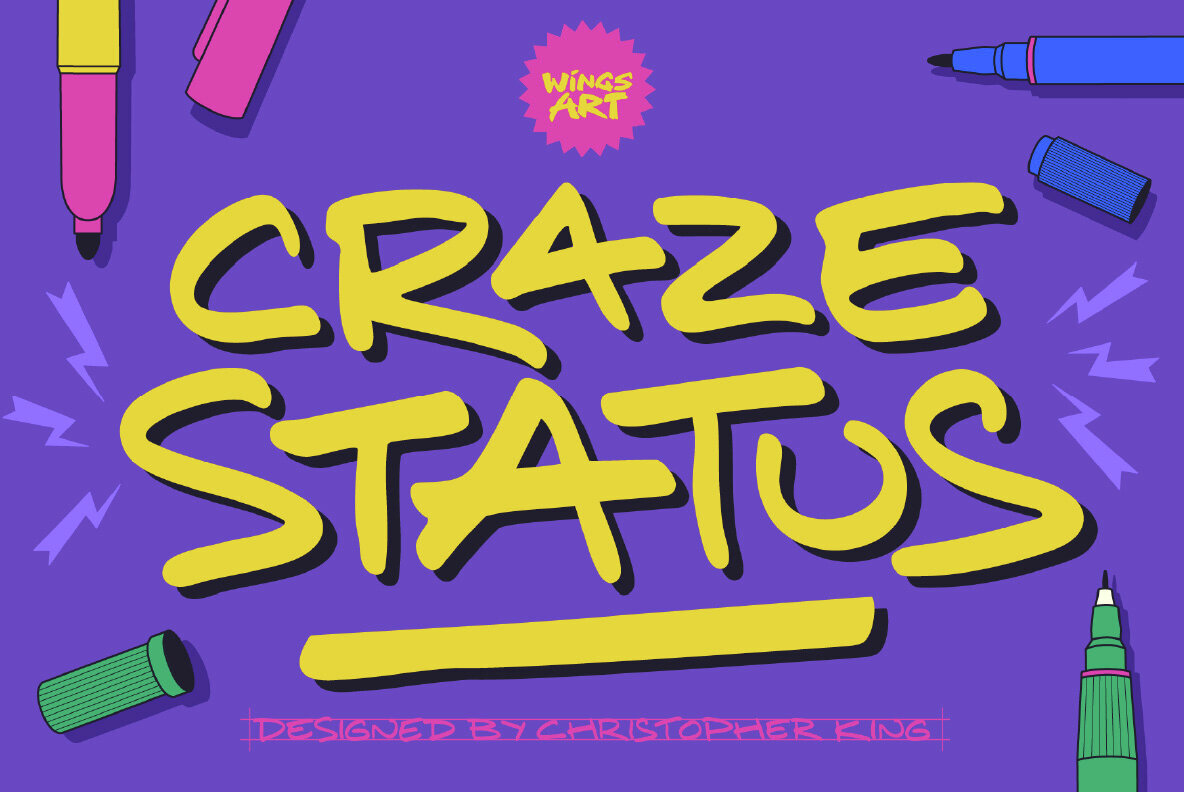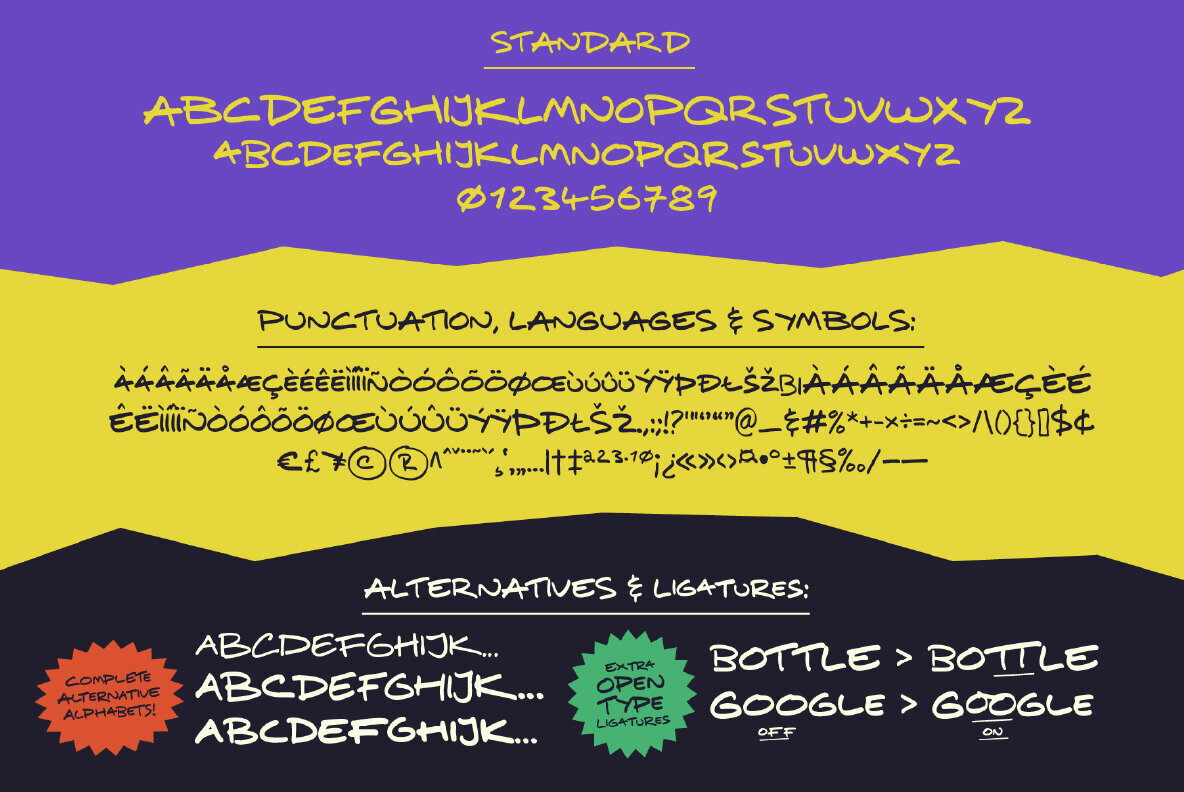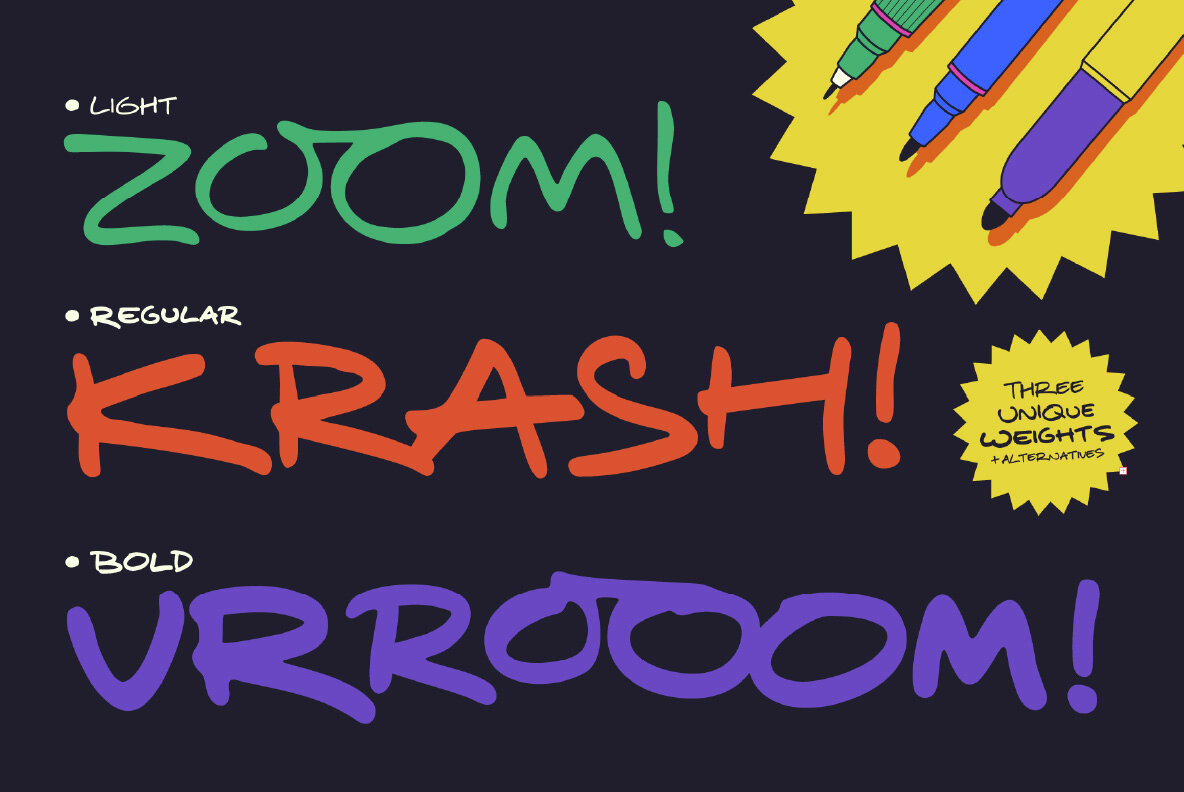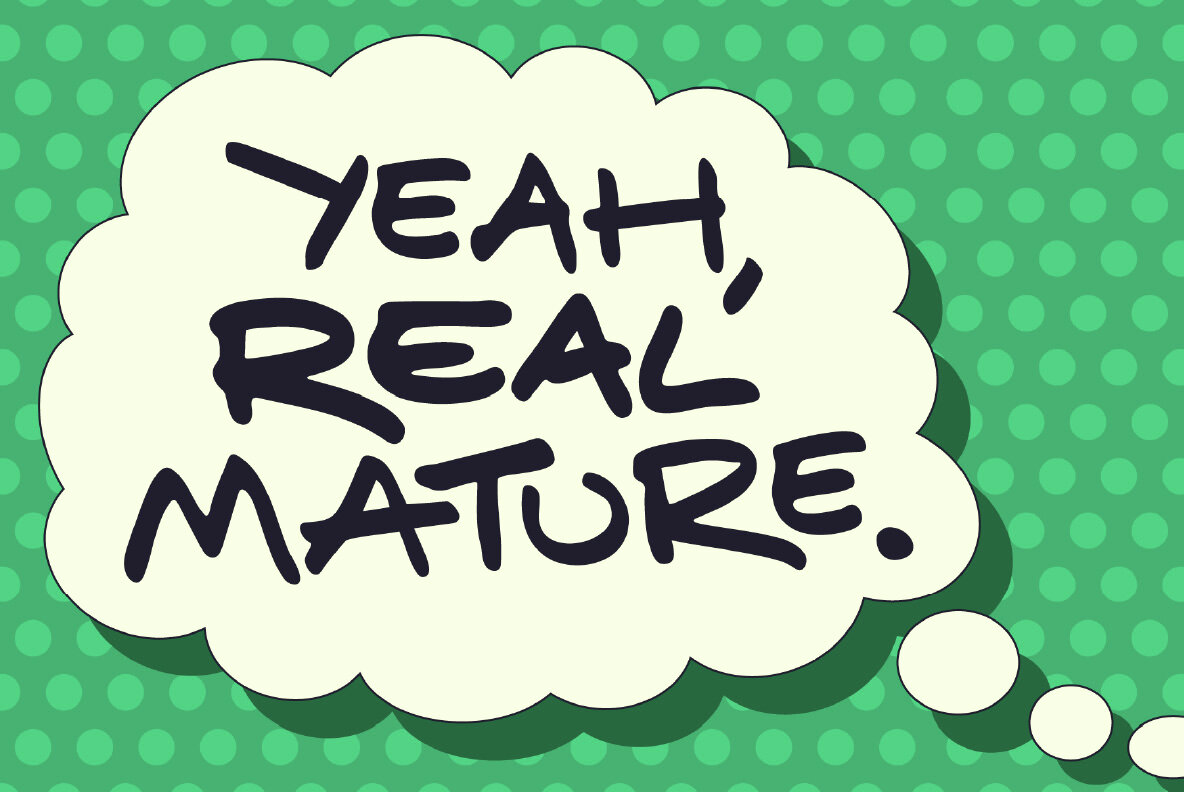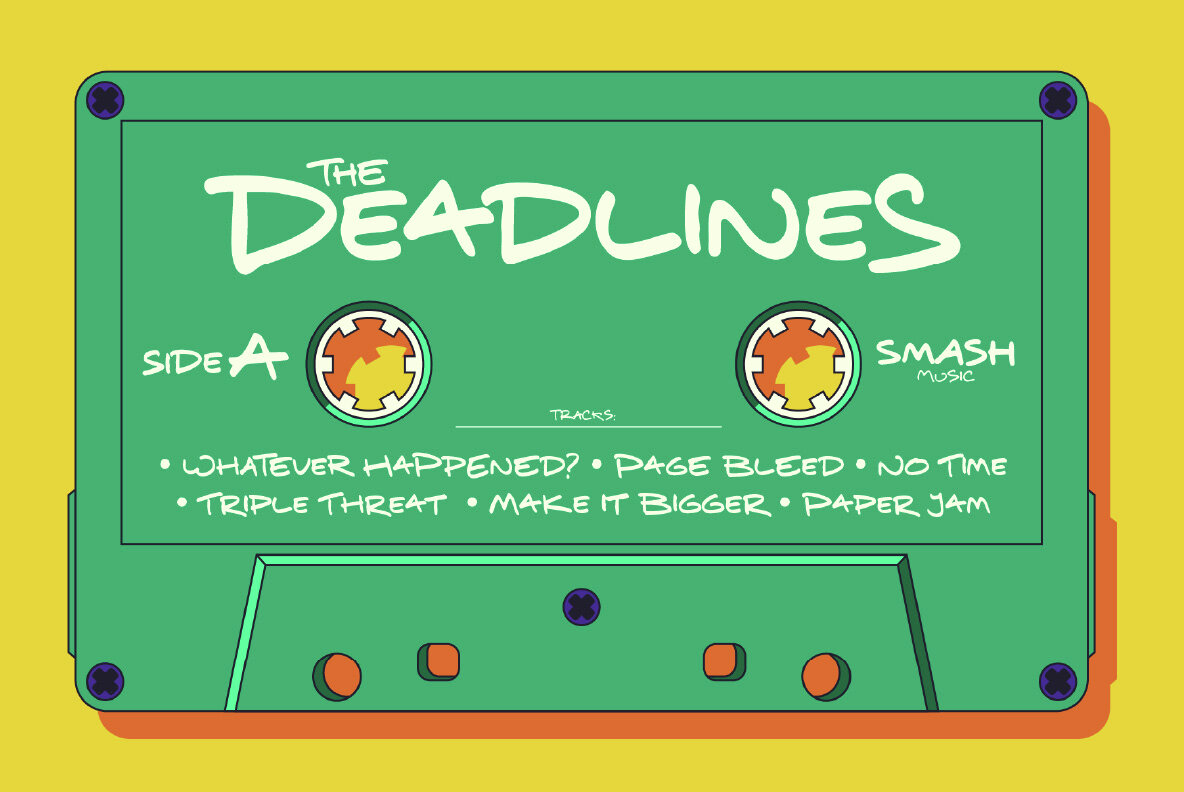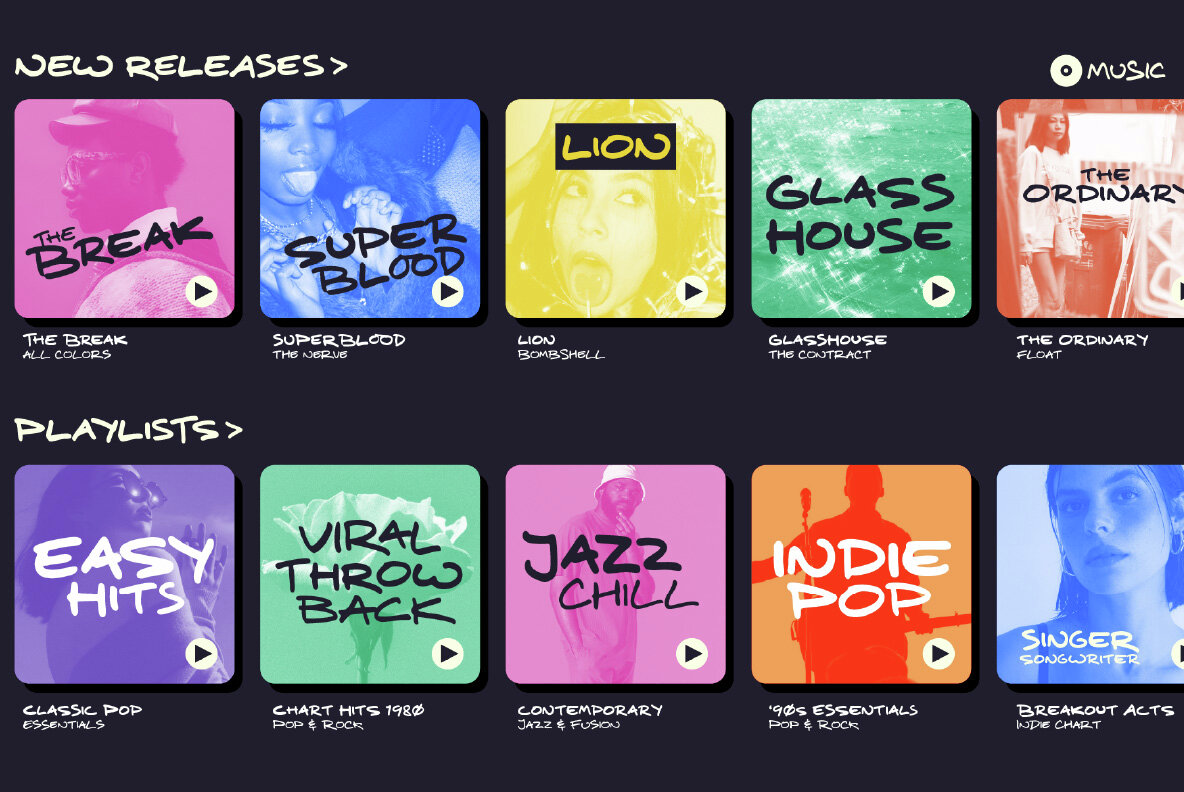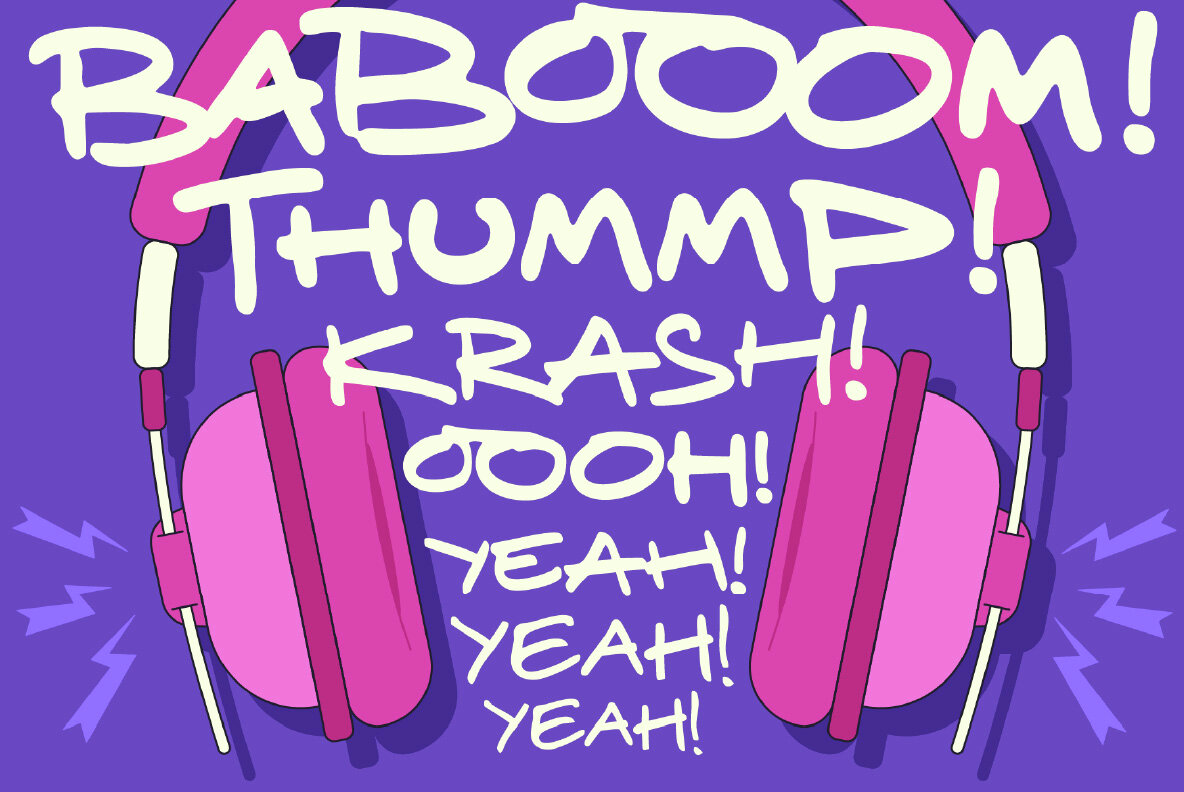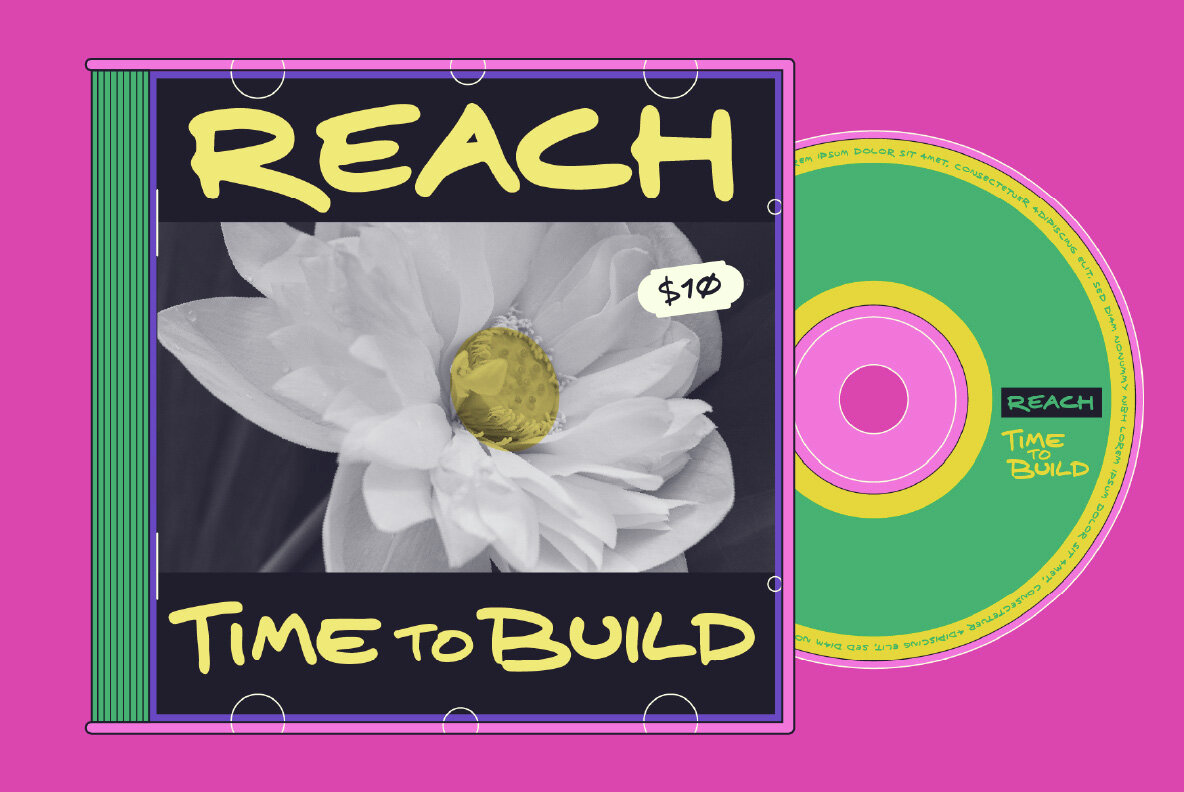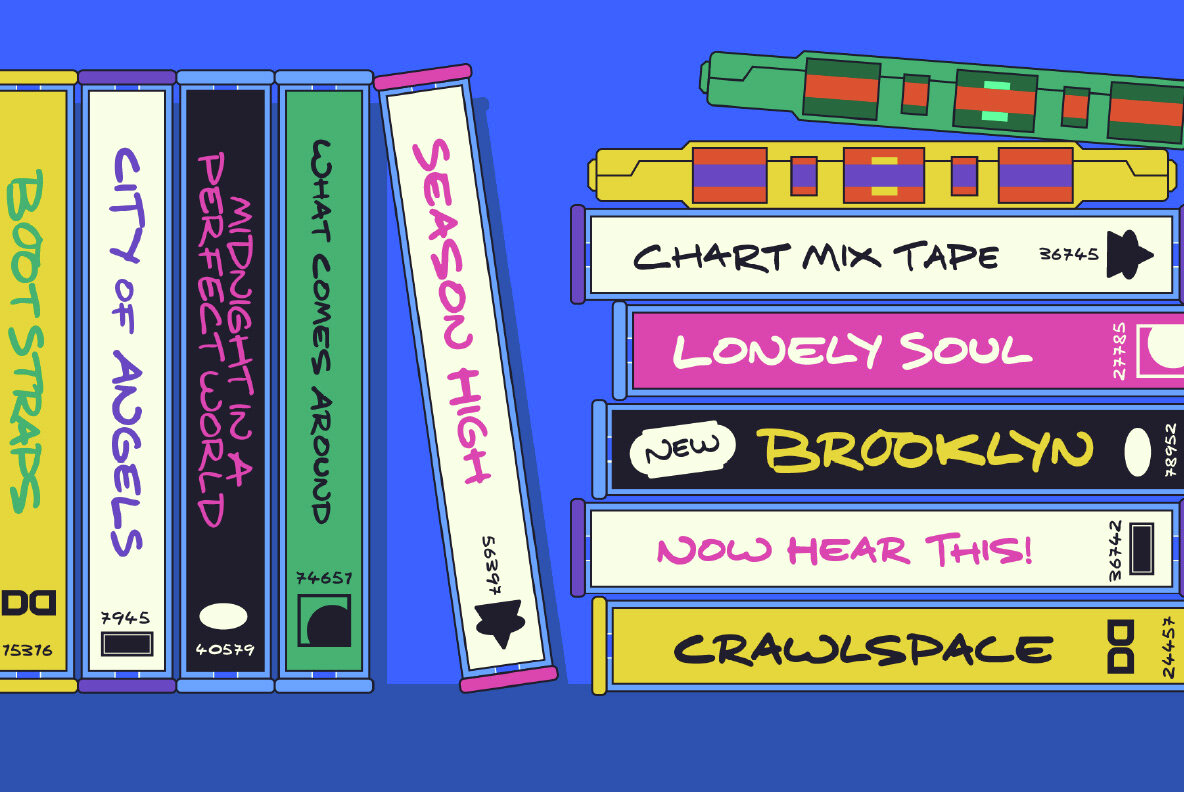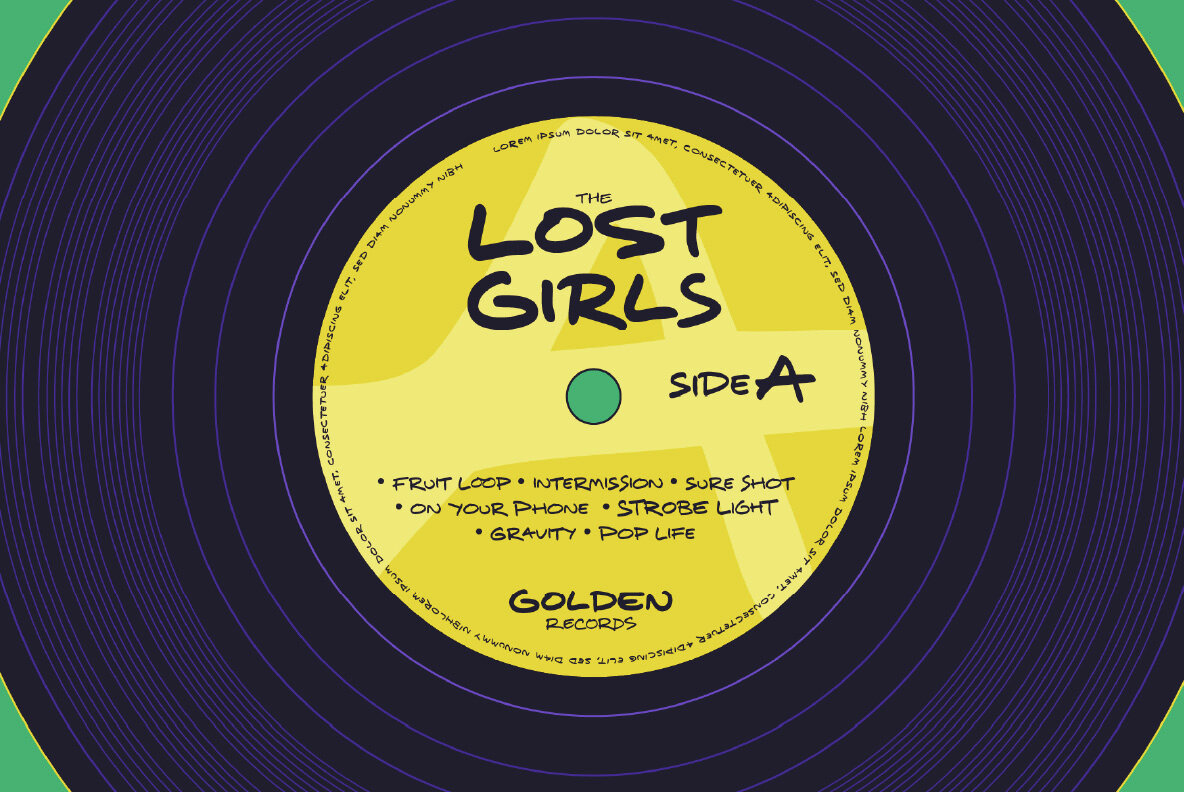
Craze Status Font
Infuse your designs with personality using Craze Status, a dynamic handwriting font inspired by authentic marker pen strokes. This versatile typeface offers three distinct weights, capturing an analog feel that resonates well with both comic book aesthetics and digital design. Blending cultural influences with practical versatility, Craze Status excels in capturing the spontaneity of handwritten notes. Its all-caps format, characterized by a freehand style, evokes nostalgia with every character, making it ideal for projects ranging from music videos to animated titles. This font ensures your work retains a personal touch in a predominantly digital era.Craze Status: Bold Handwriting With Analog Flair
Based near Bristol, UK, Christopher King is the designer behind Wingsart Studio, a creative practice specializing in hand-drawn lettering and bespoke typography for film and television. Acting as both a working portfolio and an independent font foundry, Wingsart Studio showcases King’s deep appreciation for mi...